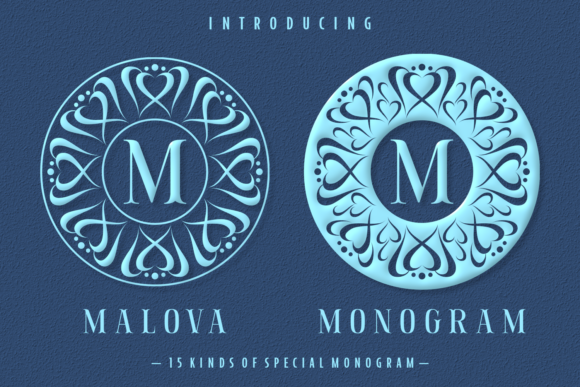
Behold the allure of Malova Font, a meticulously crafted and singularly captivating decorative font that will awaken your creative spirit. Step into a realm of exquisite beauty, where elegance and sophistication intertwine to create a visual masterpiece. Malova Font is the ultimate expression of artistry, poised to transform your designs into breathtaking works of art.
With Malova Font as your trusted companion, embark on a journey of limitless creativity. Experience the thrill of crafting designs that radiate an aura of sophistication, charm, and timeless appeal. Whether you're a seasoned designer seeking to elevate your projects or a budding artist yearning to make a statement, Malova Font is your gateway to greatness.
Imagine your words dancing across the screen, adorned with the intricate details and graceful curves of Malova Font. Each letter is a testament to the font's exquisite craftsmanship, ensuring that your designs captivate and mesmerize. Unleash your imagination and create captivating logos, eye-catching social media graphics, and stunning website designs that leave a lasting impression.
Malvo Font's PUA encoding empowers you with effortless access to a treasure trove of glyphs and swashes. Seamlessly incorporate these elements into your designs and unlock endless possibilities for customization. Experiment with different combinations and arrangements to create truly unique and captivating compositions that reflect your personal style and vision.